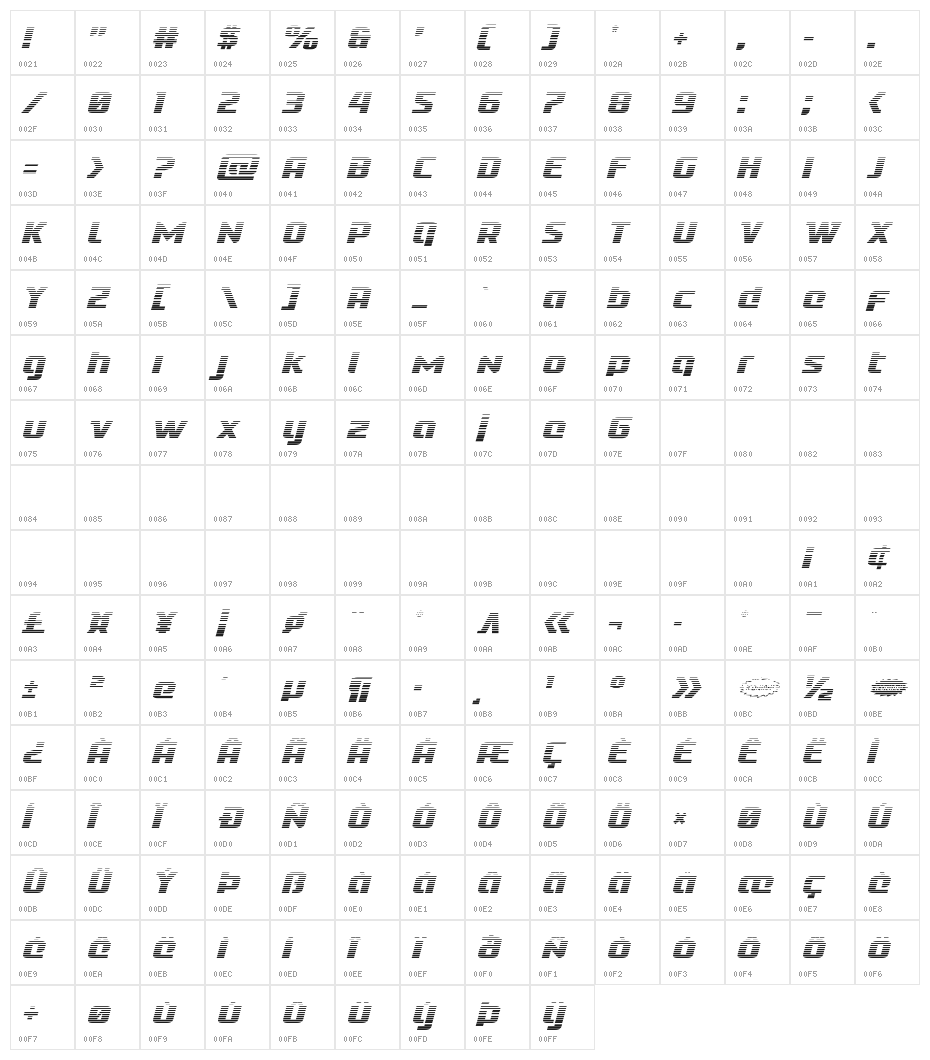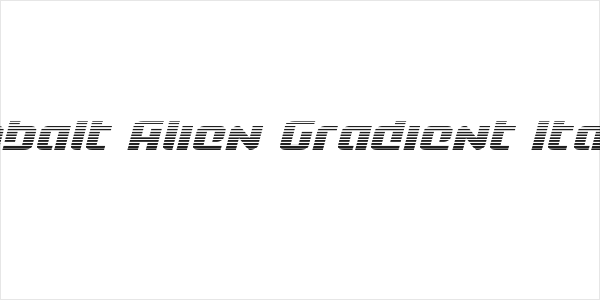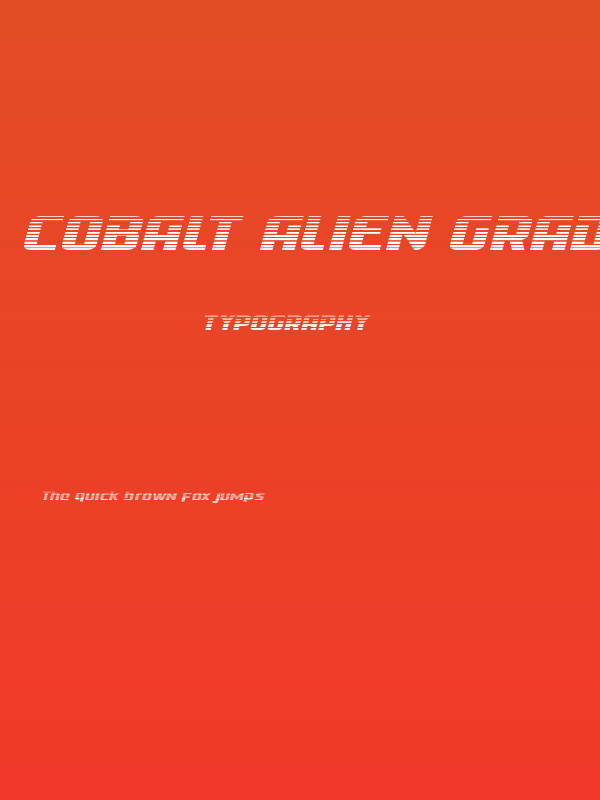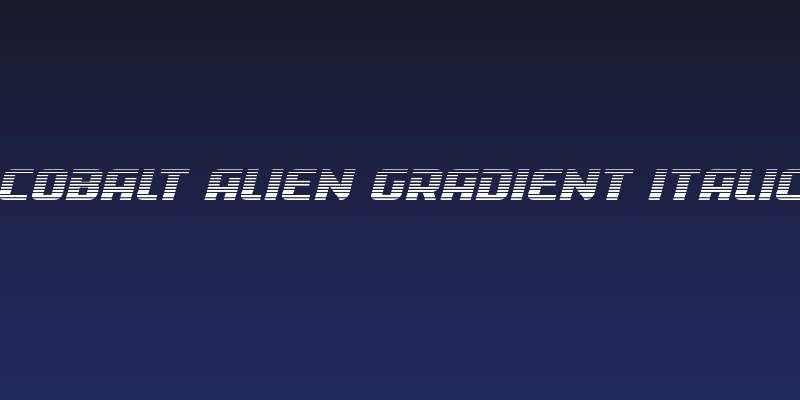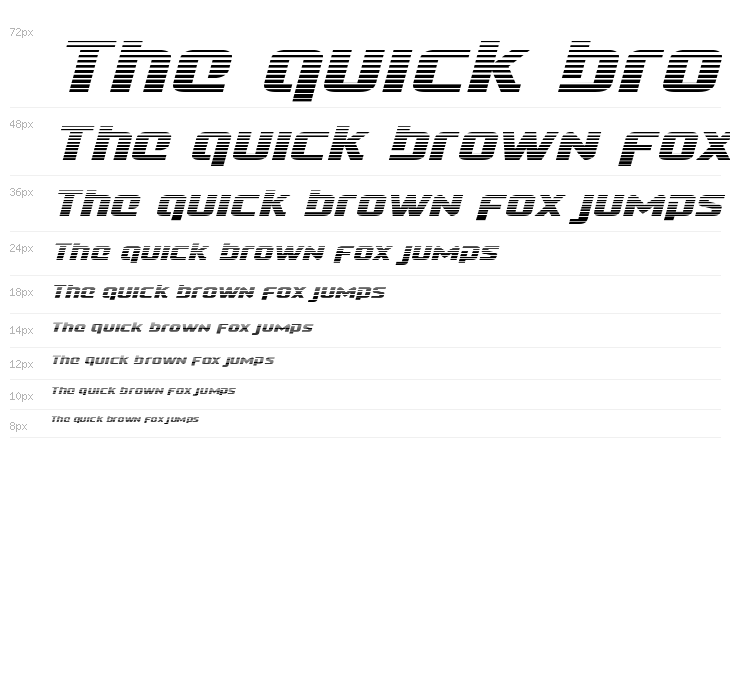
Cobalt Alien Gradient Italic Font
Cobalt Alien Gradient Italic Description
This font features a futuristic and dynamic design with a distinct italic slant. The characters are composed of horizontal lines that create a gradient effect, giving the font a sense of movement and energy. The uppercase and lowercase letters maintain a consistent style, with sharp angles and a bold presence. Numbers and special characters follow the same design principles, ensuring uniformity across all glyphs. This font is ideal for projects that require a modern and edgy look, such as technology branding, sci-fi themes, or digital media.
| Proposed Projects | Ideal for technology branding, sci-fi themes, digital media, and modern advertising. |